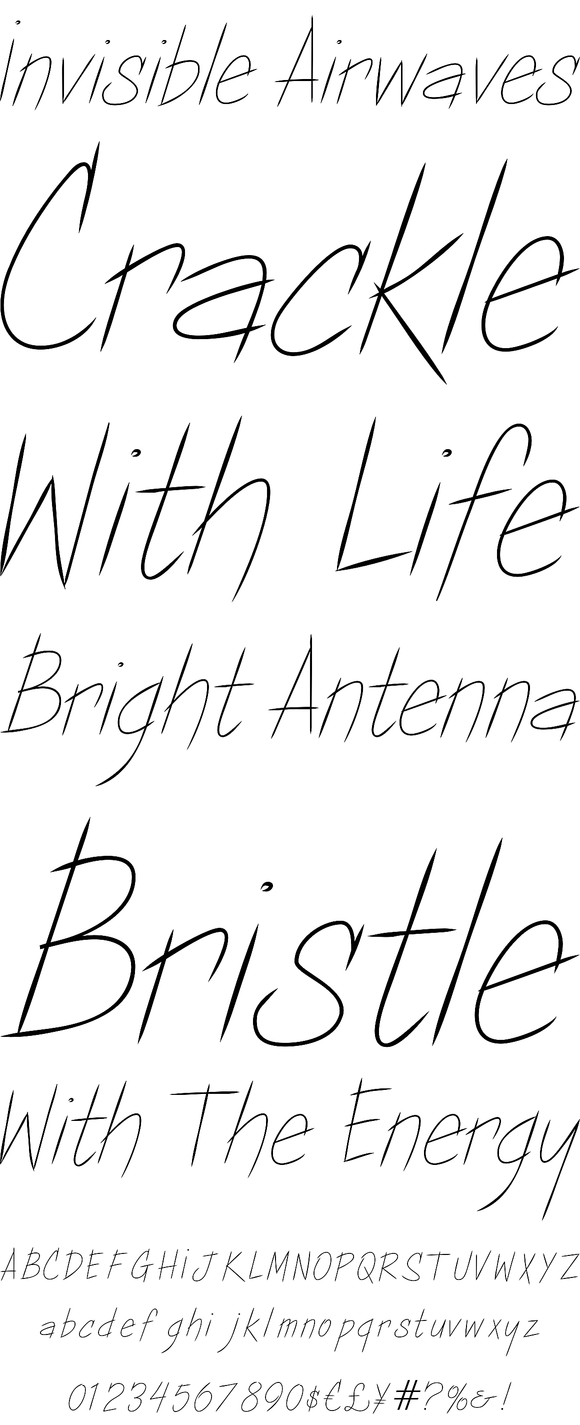
Copa Sharp
Copa Sharp is a dynamic typestyle with sharp pointed terminals and a quick flare to it. It comes complete with several variants to add to its impact, namely a dropshadow style.